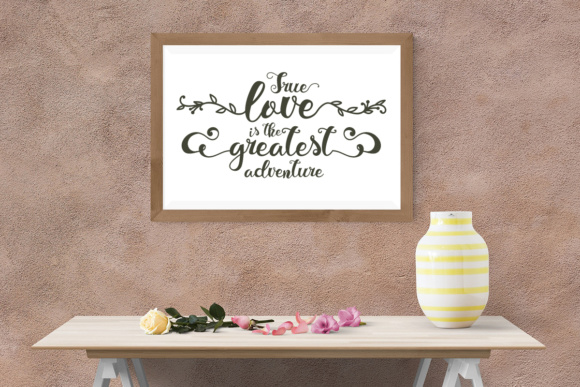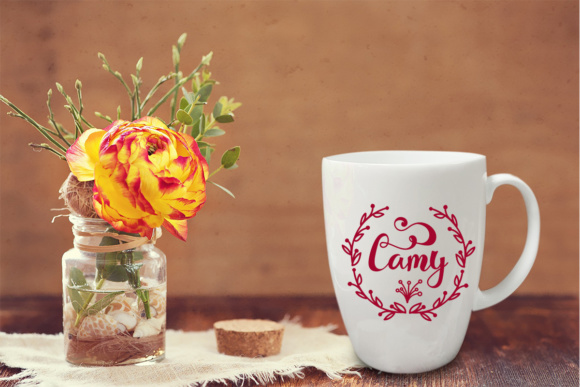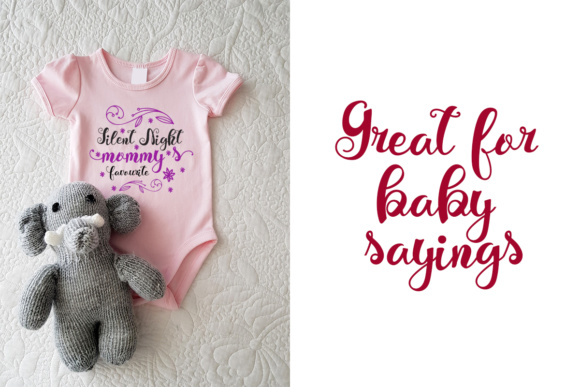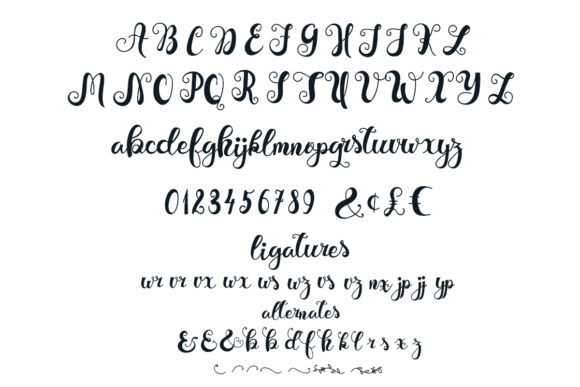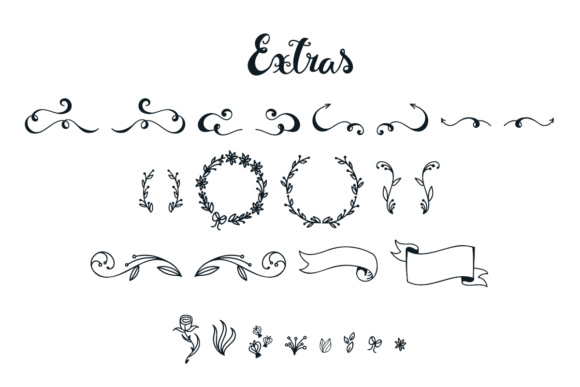
Introducing the Beautiful Dream Font: Elevate Your Designs with Elegance
Are you a creative spirit looking for a font that embodies the essence of dreamy elegance? Look no further than the Beautiful Dream font! Inspired by quotes from the Black Friday bundle, this stunning font is delicately hand-lettered to evoke a sense of whimsy and sophistication. In this article, we’ll dive into the features and benefits of the Beautiful Dream font, and explore how it can elevate your designs to new heights.
A Font that Dreams are Made Of
The Beautiful Dream font is a masterpiece of hand-lettered elegance. Its dreamy feel is perfect for designers and crafters who want to add a touch of whimsy to their projects. Whether you’re creating quotes for social media, print, and craft, or designing web banners and e-newsletters, this font is sure to impress. With its elegant lines and flowing curves, the Beautiful Dream font is the perfect choice for anyone looking to add a dash of sophistication to their designs.
One of the standout features of the Beautiful Dream font is its versatility. With a range of alternates and extras, you can mix and match to create unique and stylish projects. The font comes with a selection of swirls, banners, monograms, and floral elements that can be used to add an extra touch of elegance to your designs. Whether you’re creating whimsical collages or designing web graphics, the Beautiful Dream font has everything you need to bring your vision to life.
The Beautiful Dream font is a dream come true for designers and crafters alike. Its delicate hand-lettering and elegant lines make it perfect for a range of projects, from social media graphics to print and craft designs. Whether you’re a seasoned designer or a crafty hobbyist, this font is sure to inspire your creativity and help you create stunning designs that will leave a lasting impression.
Why Choose the Beautiful Dream Font?
So why choose the Beautiful Dream font over other fonts on the market? Here are just a few reasons why this font stands out from the crowd:
- Elegant and sophisticated: The Beautiful Dream font is the epitome of elegance and sophistication. Its delicate hand-lettering and flowing curves make it perfect for designs that require a touch of whimsy and refinement.
- Versatile: With a range of alternates and extras, the Beautiful Dream font is incredibly versatile. Whether you’re creating social media graphics, print designs, or web banners, this font has everything you need to bring your vision to life.
- Easy to use: The Beautiful Dream font is incredibly easy to use, even for those who are new to design. With its clear and concise lettering, you can quickly and easily create stunning designs that will leave a lasting impression.
How to Use the Beautiful Dream Font
Using the Beautiful Dream font is easy! Here are a few tips to get you started:
- Experiment with alternates: The Beautiful Dream font comes with a range of alternates that can be used to add a touch of whimsy to your designs. Experiment with different alternates to find the one that works best for your project.
- Add extras: The font comes with a selection of extras, including swirls, banners, monograms, and floral elements. Use these extras to add an extra touch of elegance to your designs.
- Mix and match: Don’t be afraid to mix and match different elements to create a unique and stylish design. The Beautiful Dream font is incredibly versatile, so feel free to experiment and try new things!
| Font Name | Beautiful Dream Font |
| Author | Illustrator Guru |
In conclusion, the Beautiful Dream font is a stunning addition to any designer’s toolkit. Its elegant lines, flowing curves, and versatile alternates make it perfect for a range of projects, from social media graphics to print and craft designs. Whether you’re a seasoned designer or a crafty hobbyist, this font is sure to inspire your creativity and help you create stunning designs that will leave a lasting impression. So why wait? Download the Beautiful Dream font today and start creating your own beautiful dreams!